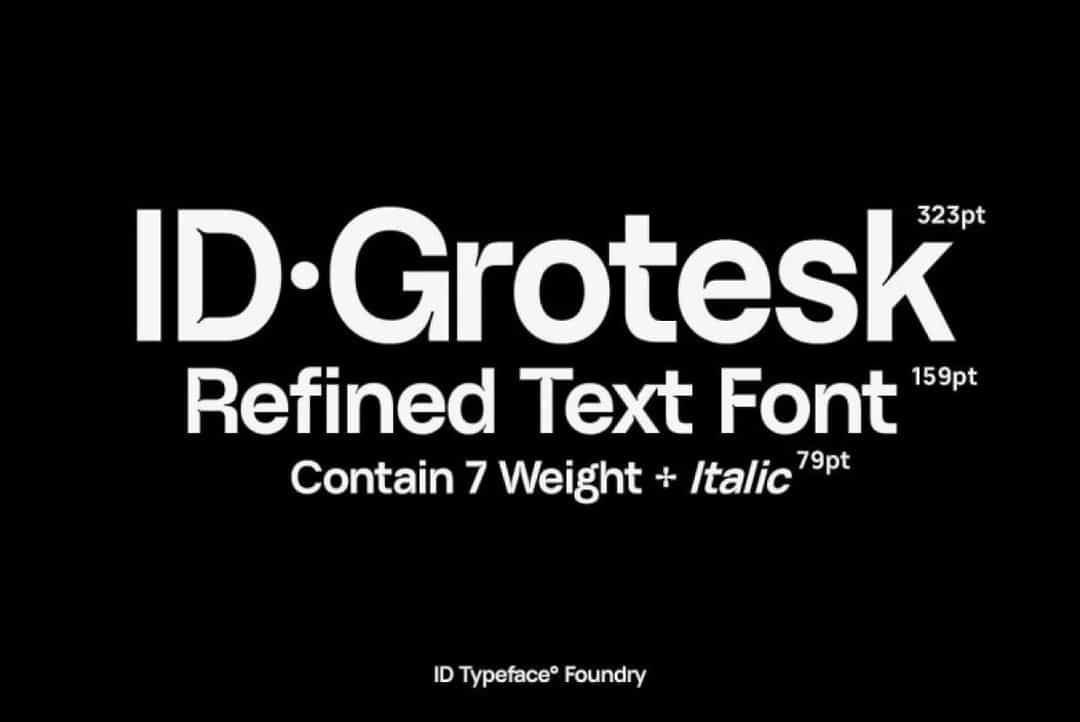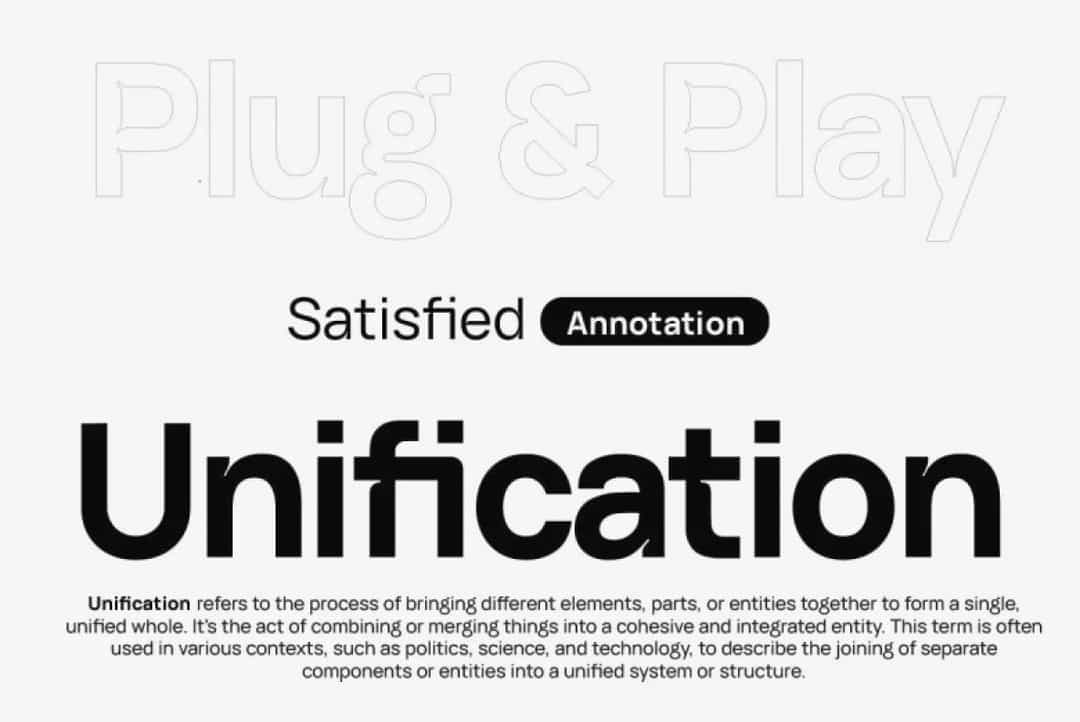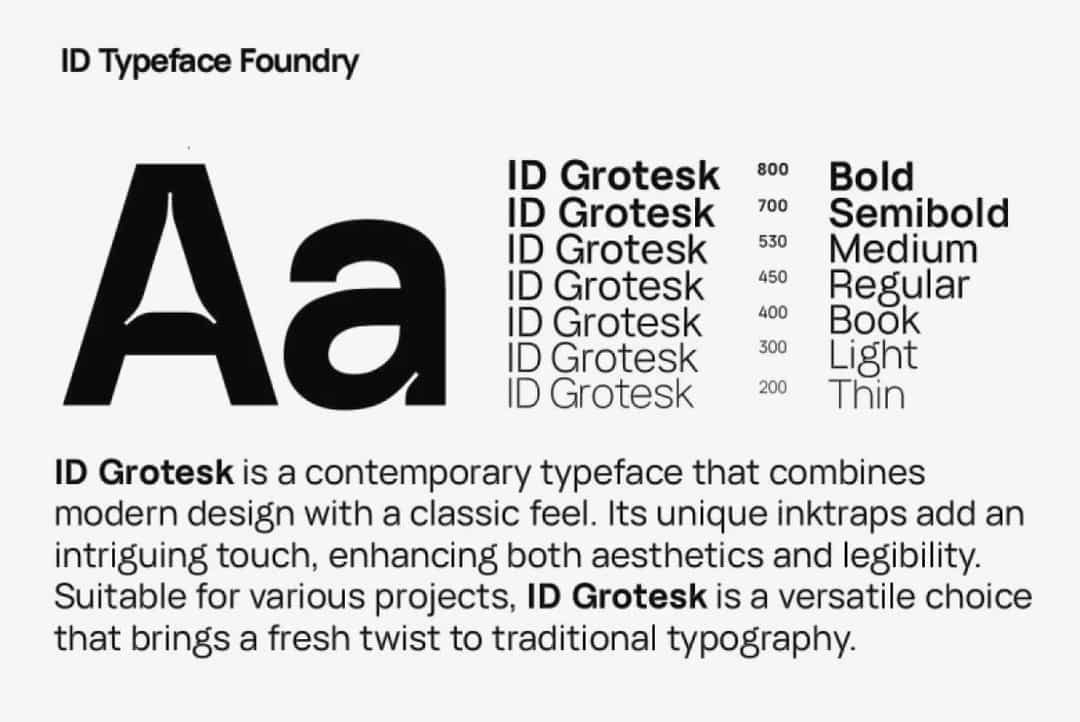
Discover ID Grotesk Font, part of the Sans Serif Basic collection—a versatile and unique font perfect for adding a personal touch to your projects. Download it for free and enjoy crafting designs with style, from invitations to social media posts. This font is available exclusively for personal use, giving you the freedom to create without limits. Unlock your creativity with ID Grotesk Font today!
ID Grotesk is an elegant sans-serif font family that blends modern design with traditional elements, adding appeal through unique inktraps. Perfect for use across a range of projects and industries alike. ID Grotesk gives classic typography an update.